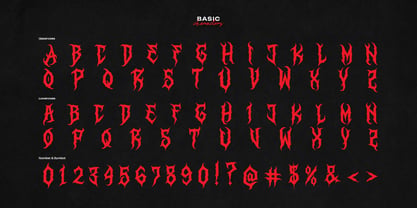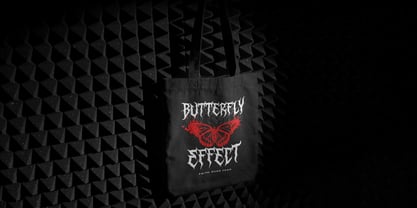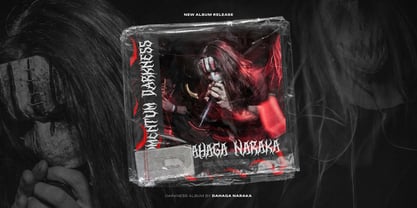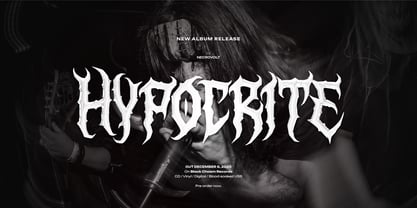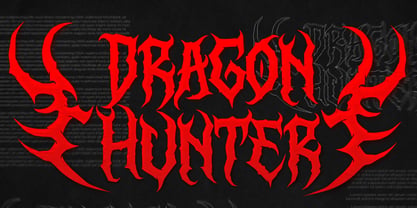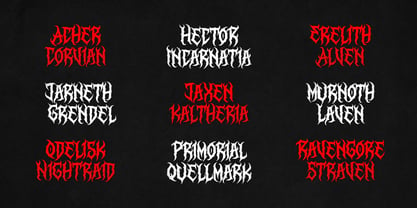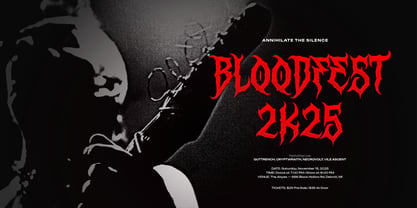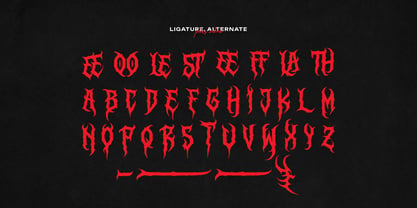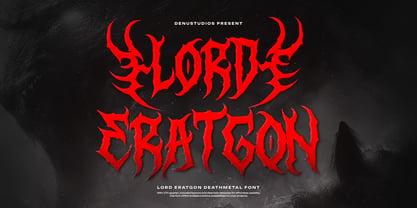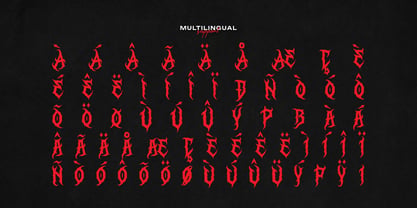
Lord Eratgon
The Lord Eratgon Font Family was designed by Dede Nugraha and published by Denustudio. Lord Eratgon contains 1 styles. More about this family
Lord Eratgon | Death Metal Font, from Denustudios, suitable for any projects such as: logos, branding projects, homeware designs, product packaging, mugs, quotes, posters, shopping bags, t-shirts, book covers, name card, invitation cards, greeting cards, label, photography, watermark, special events, and all your other lovely projects that need Black Metal Font a taste.
• Regular and Italic
• Standard glyphs
• Alternate and Ligature
• Fonts include multilingual support